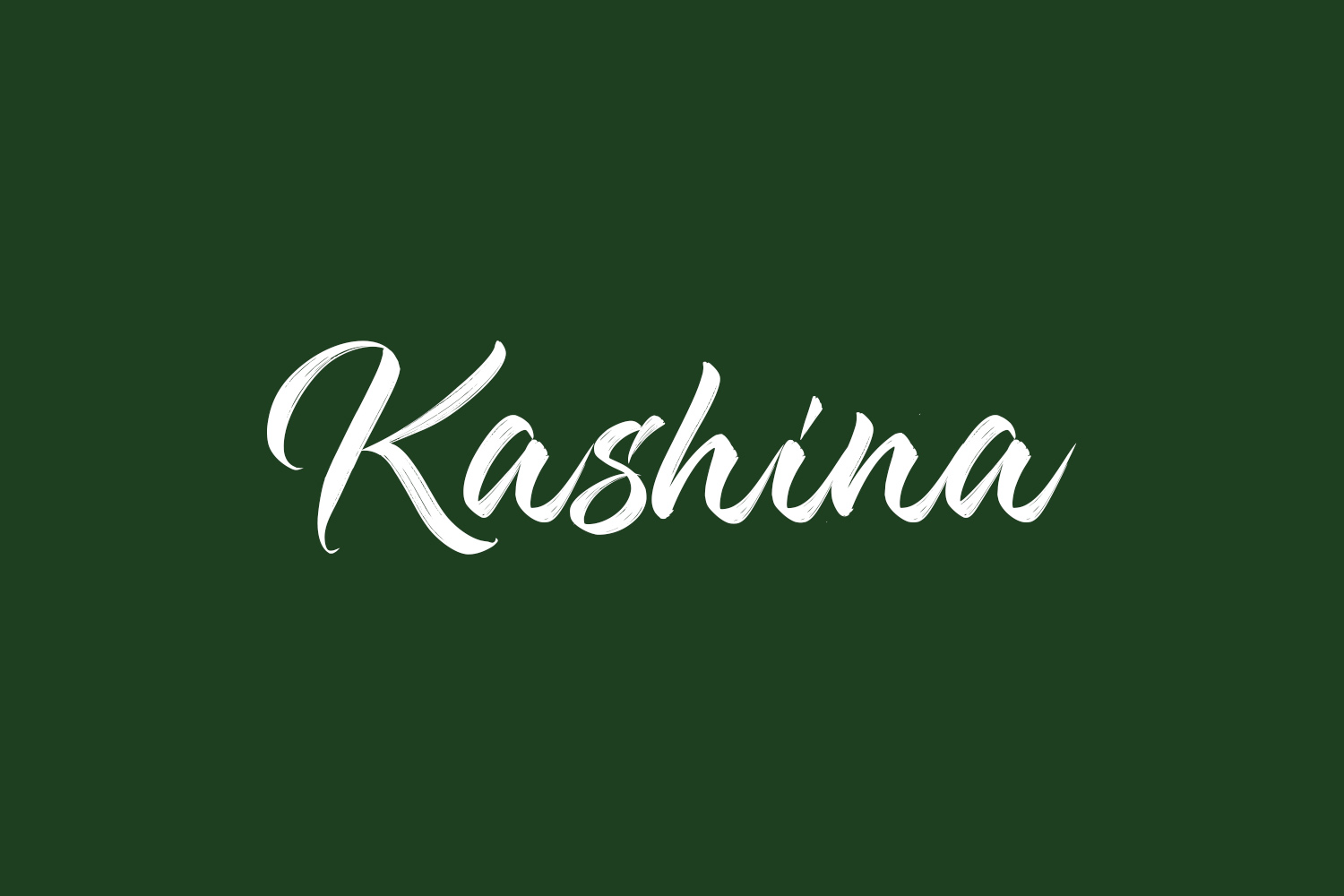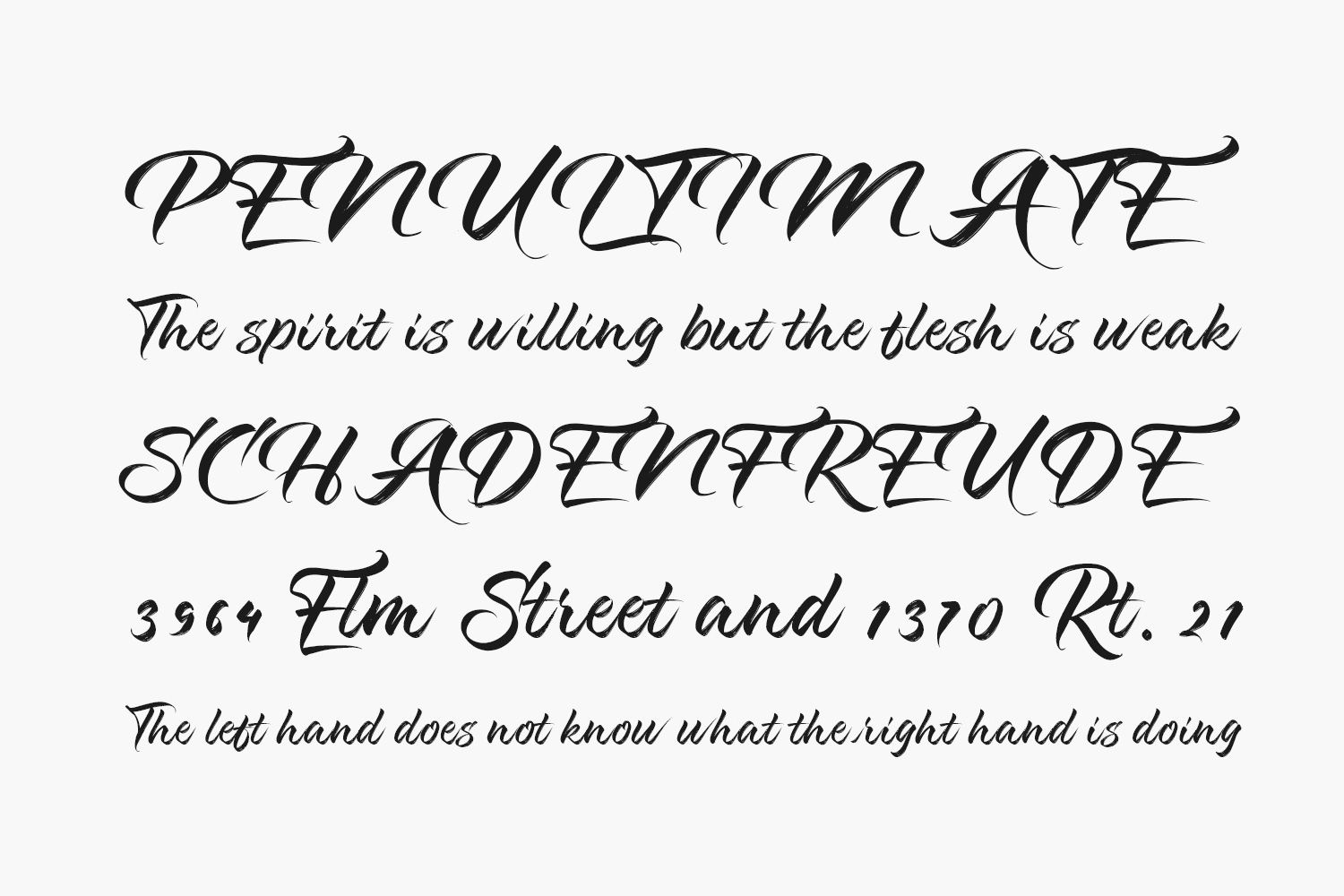
Kashina Free Font is a chic script font. Fall for its ravishing style and use it to create gorgeous wedding invitations, beautiful stationary art, eye-catching social media posts, and much more. Kashina Free Font was designed by Debut Studio and is free for personal use only. Please purchase the full version for commercial use.